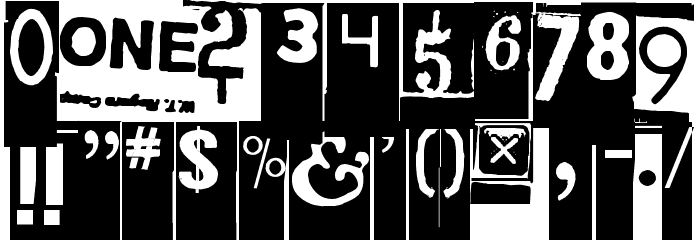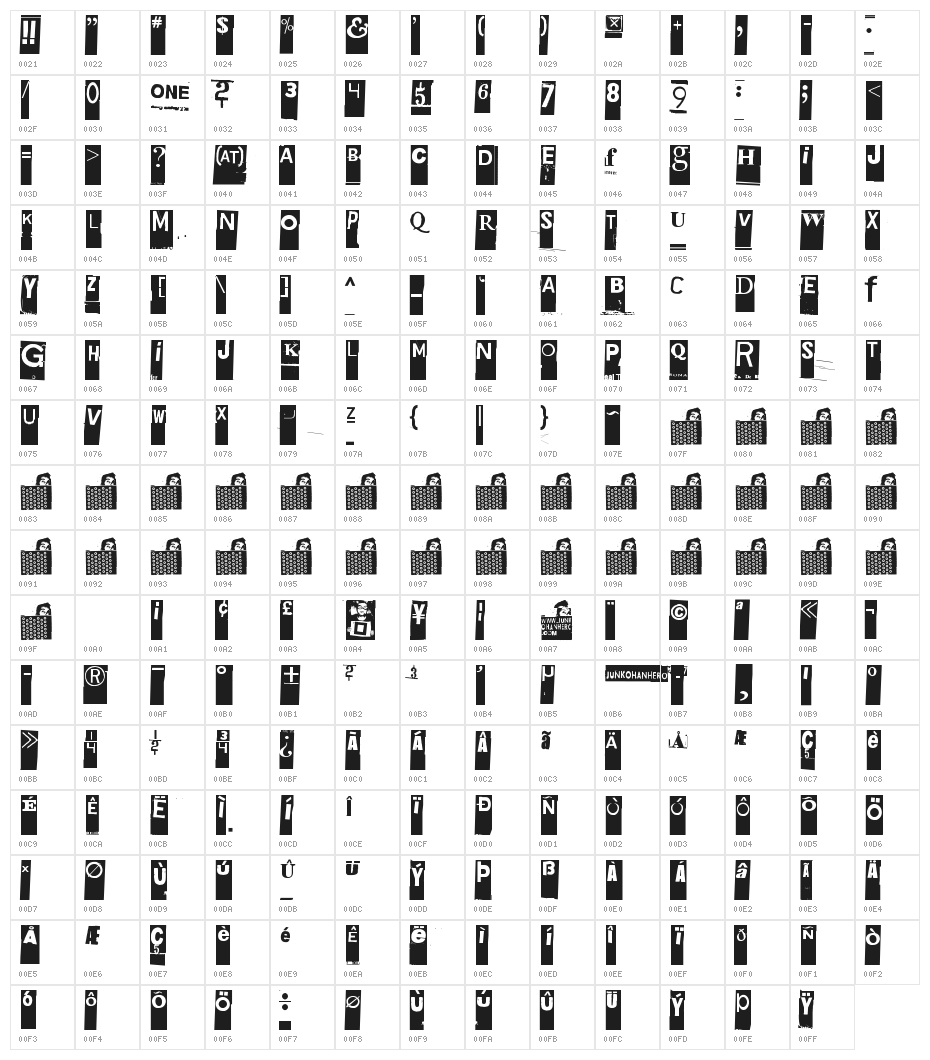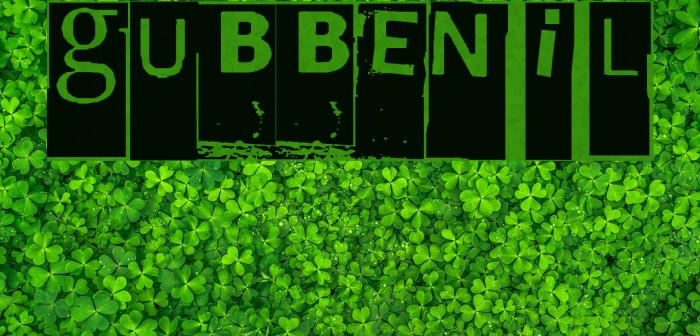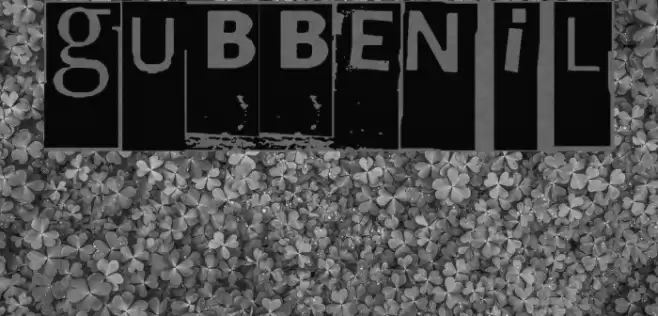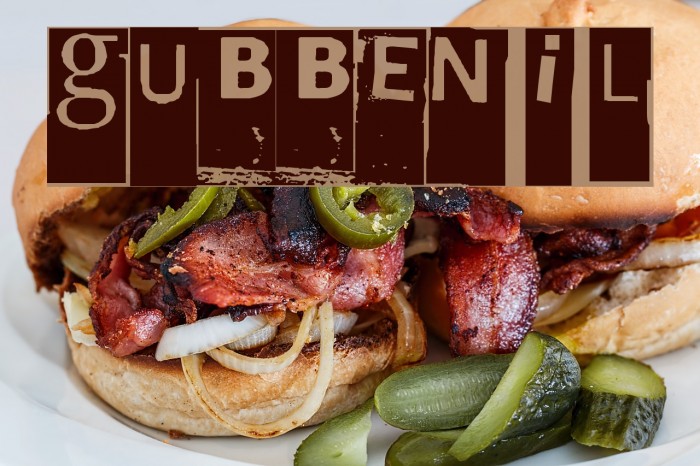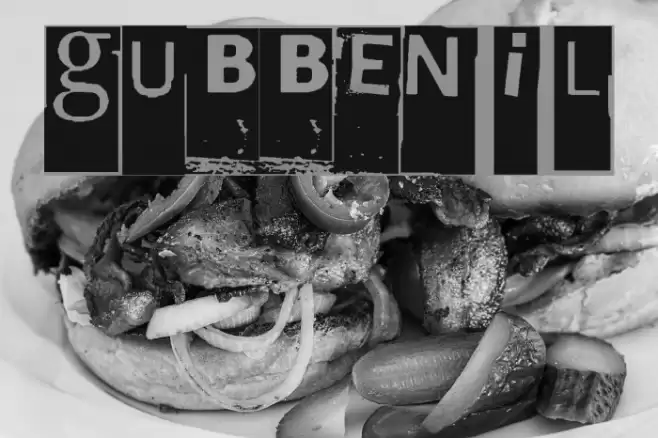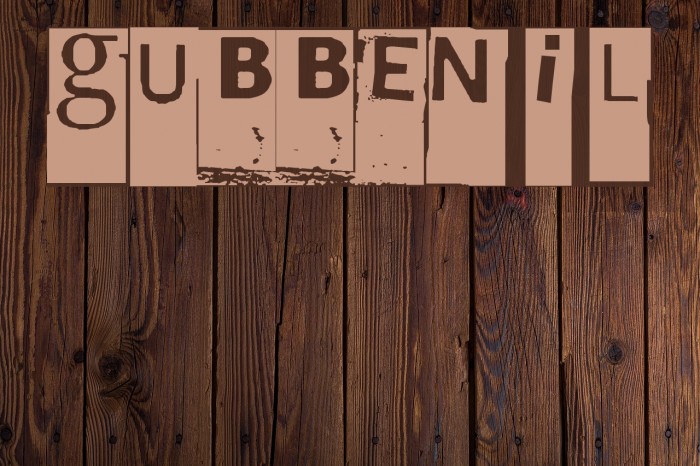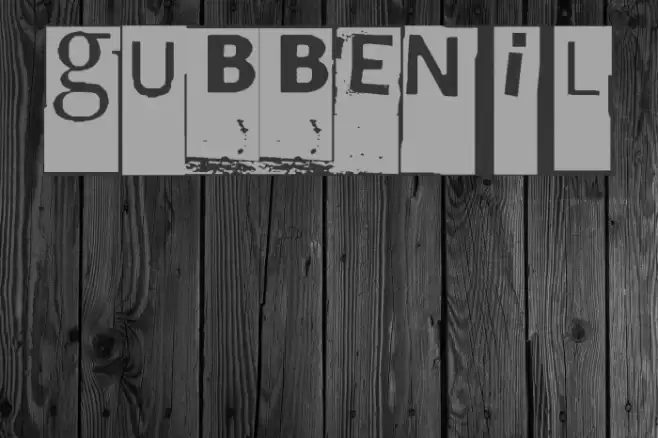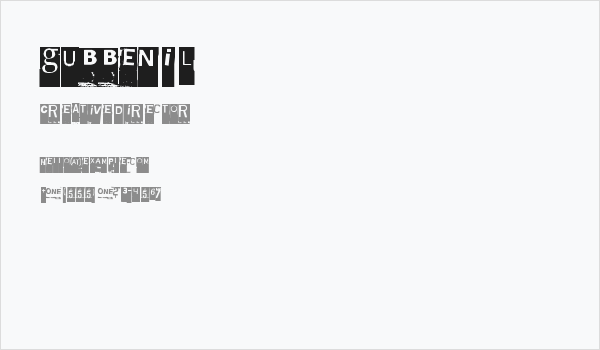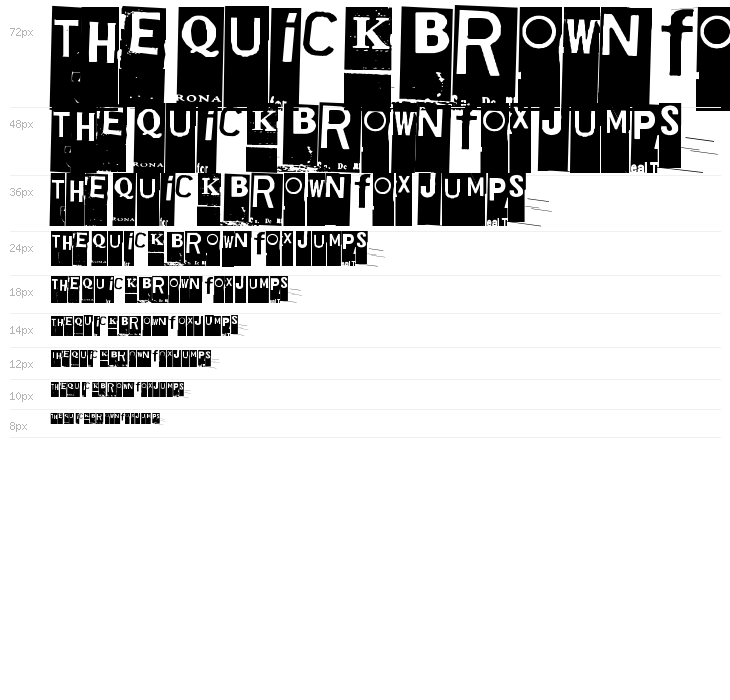
Gubben I L Font
Gubben I L Description
This font features a highly eclectic and artistic style, reminiscent of a ransom note or collage. Each character appears to be cut from different sources, resulting in a mix of serif and sans-serif styles, varying weights, and unique shapes. The letters are irregular and have a hand-crafted appearance, with some characters leaning or tilting, adding to the chaotic and dynamic feel. The numbers and special characters follow the same eclectic pattern, contributing to the overall unconventional and artistic aesthetic.
| Overall Style | Artistic, Eclectic |
| Use Case | Posters, Artistic designs, Album covers |
| Proposed Projects | Ideal for artistic projects, album covers, posters, or any design requiring a unique, handmade look. |